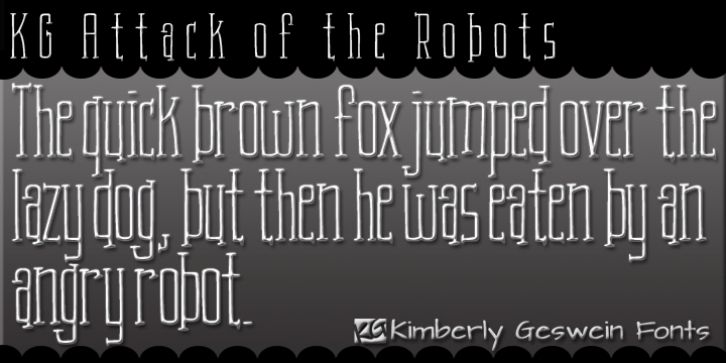
KG Attack Of The Robots was designed by Kimberly Geswein and published by Kimberly Geswein. KG Attack Of The Robots contains 1 style.
This squared font is designed to look robotic in style.